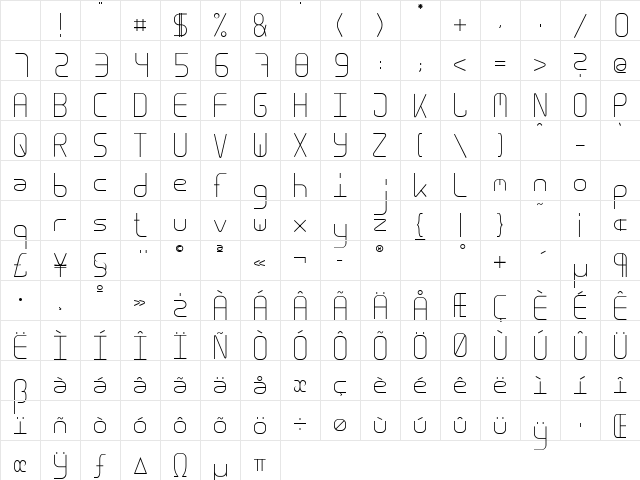
Across The Stars Regular
Design Context for Across The Stars
Across The Stars is a composed and adaptable typeface that performs quietly and consistently across a wide range of design contexts.